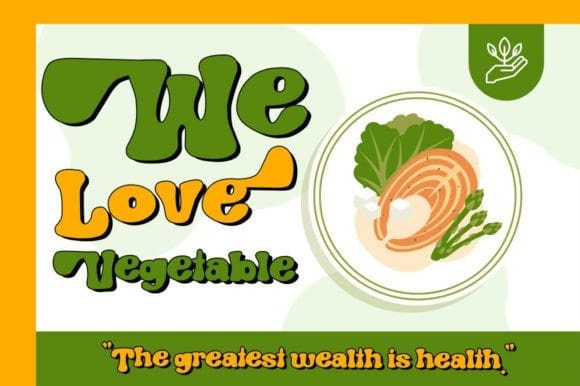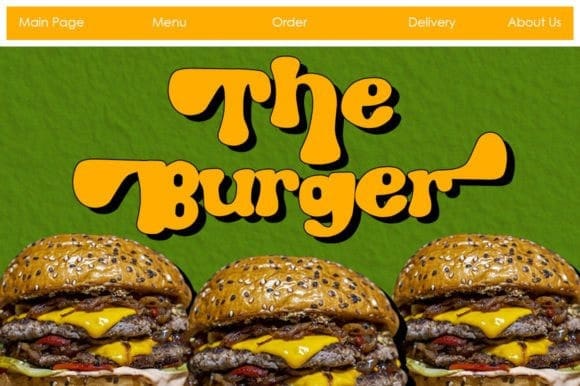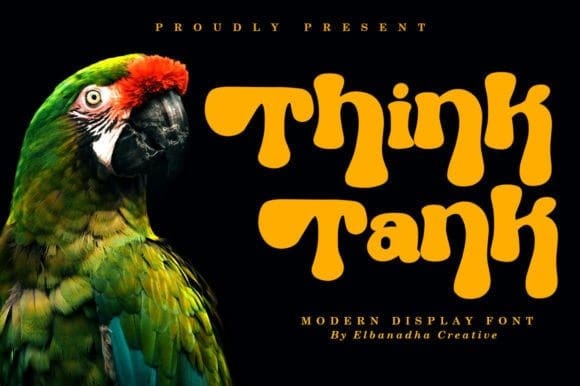
Thinktank Font
Thinktank Font is a groovy display font, suitable for any projects such as logos, branding projects, homeware designs, product packaging, mugs, quotes, posters, shopping bags, t-shirts, book covers, name cards, invitation cards, greeting cards, label, photography, watermark, special events, and all your other lovely projects that need a beautiful taste.